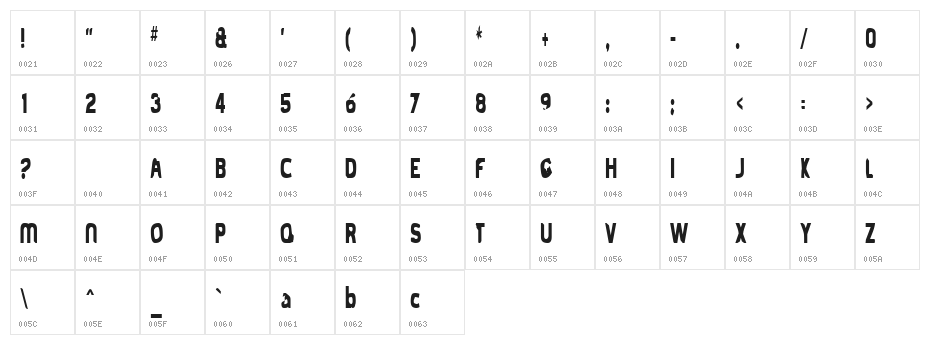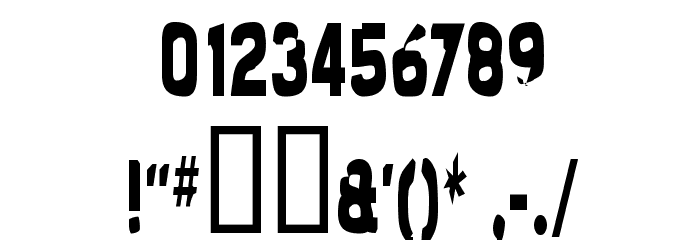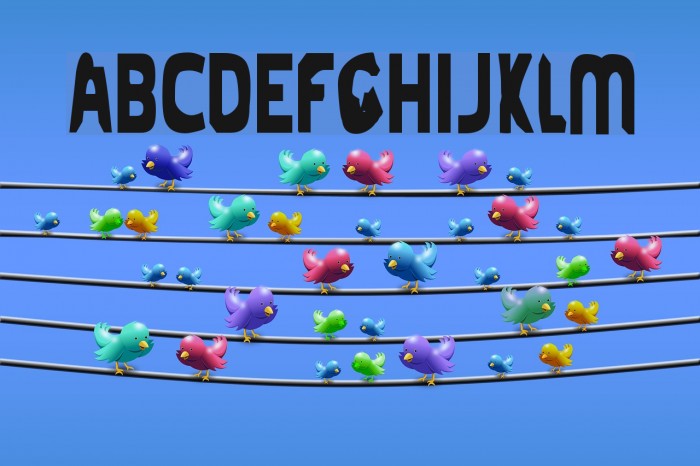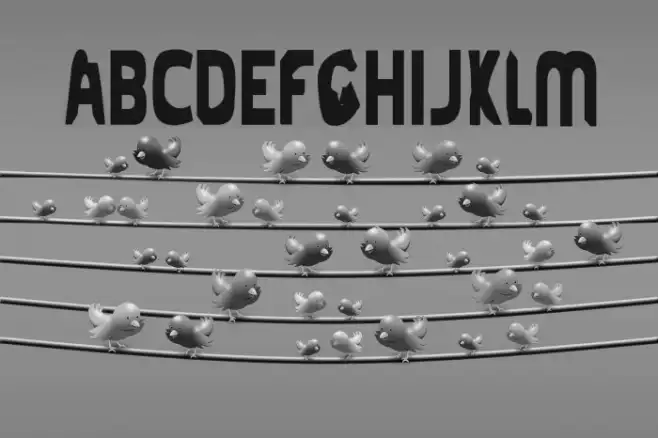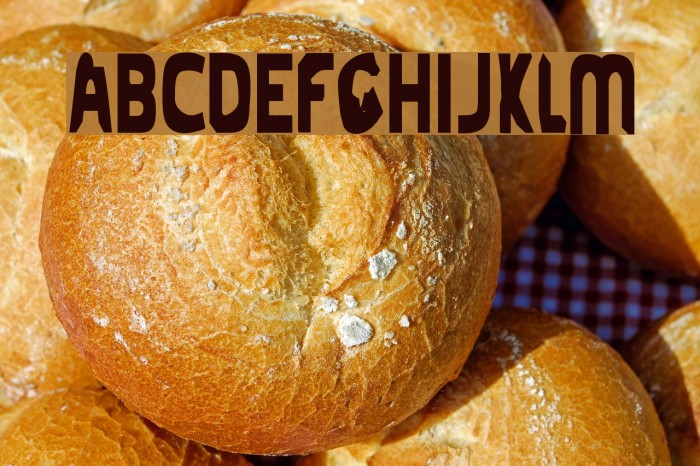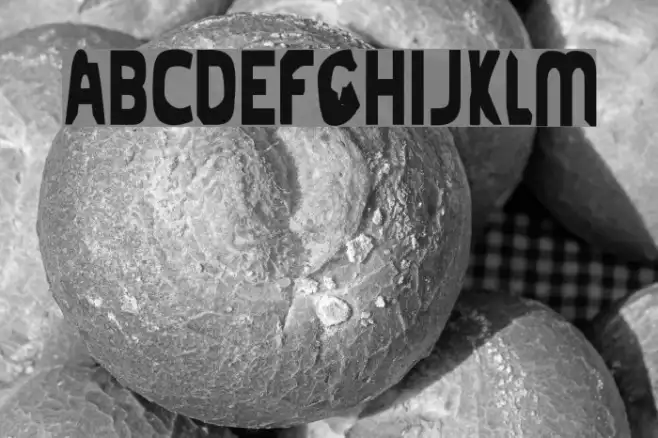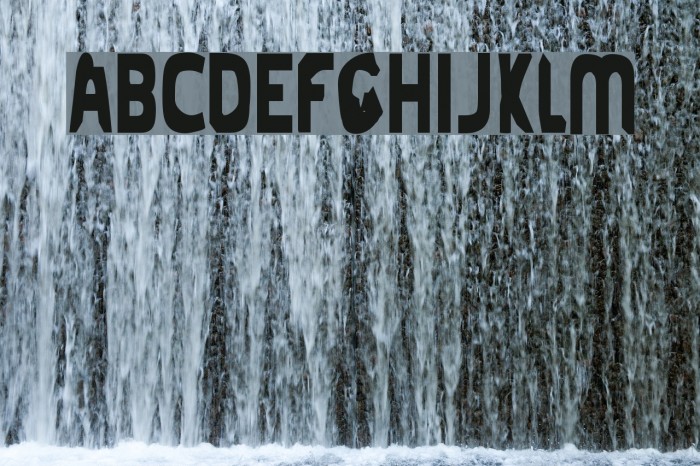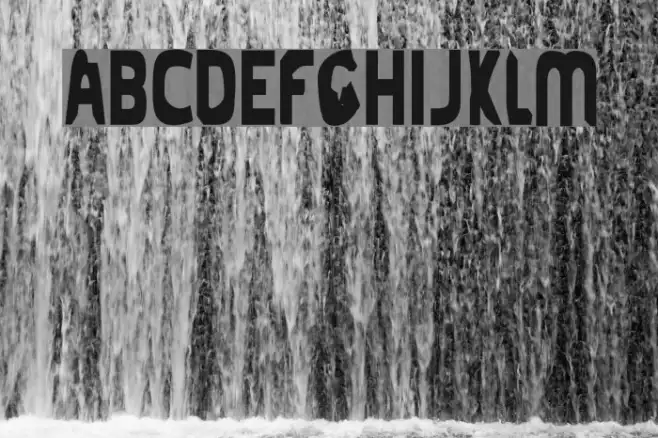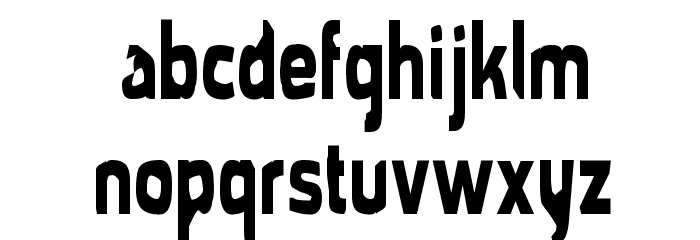
Mold Papa Font
Mold Papa Description
This font features a bold and dynamic style with a strong presence. The uppercase letters are robust and slightly condensed, giving a sense of stability and strength. The lowercase letters maintain a consistent weight, offering a harmonious balance with the uppercase. The numbers are clear and legible, designed to stand out with their bold strokes. Special characters are crafted with precision, adding to the overall cohesive look. The font's design is modern yet retains a touch of classic appeal, making it versatile for various applications.